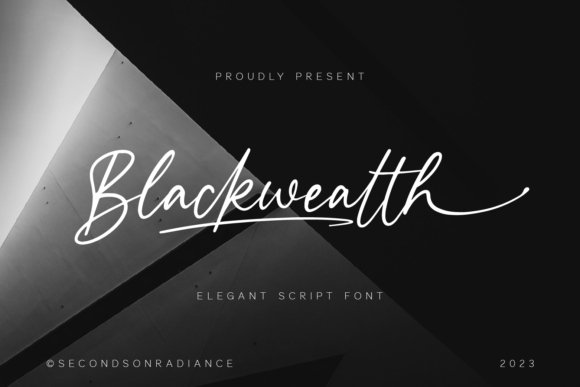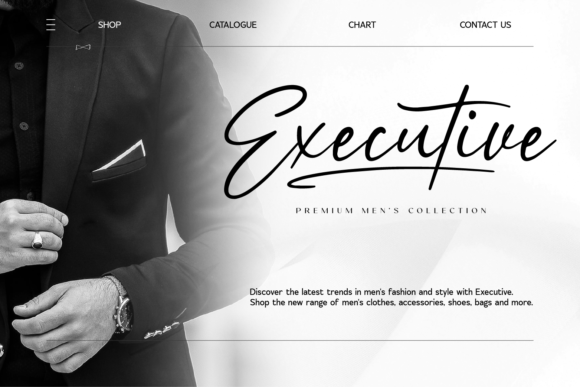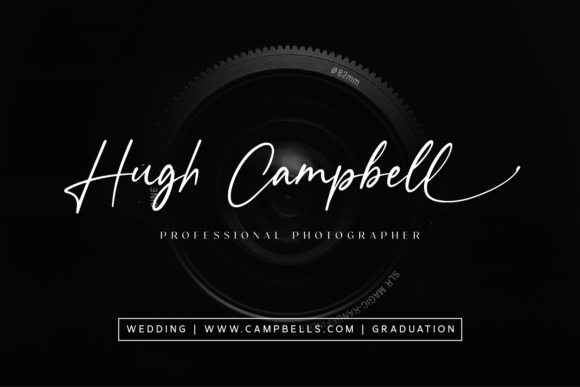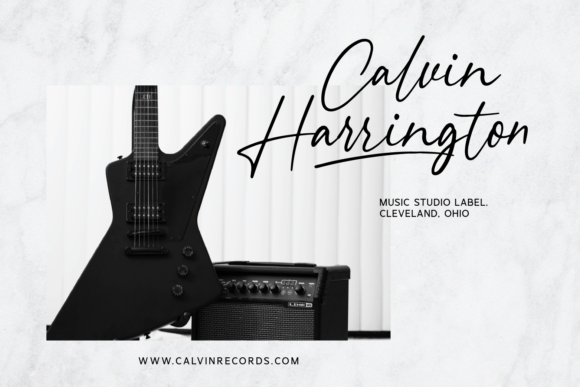
Blackwealth Font
About the Blackwealth Font
Welcome to the world of Blackwealth Font, a typeface that will inspire your next great project. Meet Blackwealth Script, a modern script font loaded with ligatures for that aesthetic look of script. Blackwealth Script can be used for invitation cards and wedding calligraphy, elegant logos, small business branding, packaging, and much more!
Blackwealth Script’s elegant, yet modern feel makes it ideal for branding projects requiring a touch of sophistication, particularly logos, short headlines, and packaging design for high-end products. It also works well for invitations and other stationery where a touch of hand-crafted aesthetic is desired. However, its script nature makes it less suitable for body text or UI elements where readability is paramount. Avoid using it for large blocks of text.
The font exudes a sense of refined boldness; it’s simultaneously modern and timeless, suitable for brands projecting luxury, quality, and understated elegance.
Blackwealth Font Usage Examples
Blackwealth Font Example